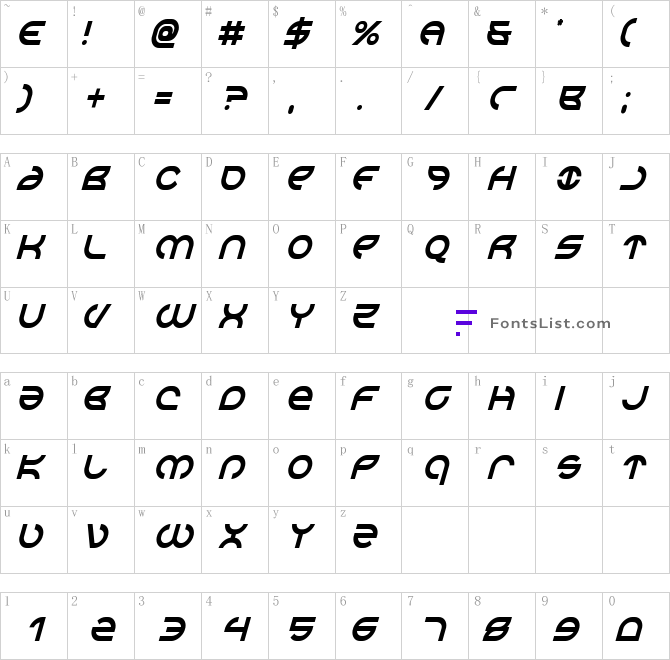
- Font Name:Aetherfox Condensed Italic
Aetherfox-Condensed-Italic.ttf is a very beautiful artistic font, Aetherfox-Condensed-Italic.ttf is widely used in the design and printing of various books and pictures,Aetherfox-Condensed-Italic.ttf has a strong visual impact,Aetherfox-Condensed-Italic.ttf is a commonly used font in newspapers, magazines and books, and is used in posters, e-commerce Poster design, store design, logo design, font design and other fields.Aetherfox-Condensed-Italic.